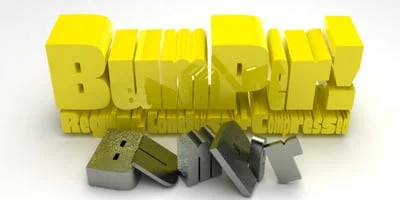
Bumper Font
Bumper Font is perfect for automotive industry branding, car dealership marketing, racing event promotions, auto repair shop signage, collision center communications, and high-impact automotive campaigns. Its robust character makes it ideal for car manufacturers, automotive parts suppliers, racing teams, auto insurance companies, and any application requiring bold typography that conveys automotive strength, road durability, and the rugged reliability of vehicles built to withstand impact and deliver dependable performance.
Bumper Font is exciting because it embodies the protective strength and impact resistance of automotive engineering through powerfully constructed letterforms that reflect the safety features and robust construction that protect drivers and passengers. Its sturdy proportions and impact-resistant details evoke the confidence that comes from reliable automotive protection and the peace of mind provided by well-engineered safety systems, making it perfect for brands emphasizing automotive security and durability. The font's protective character transforms communications into declarations of automotive reliability.
Bumper Font family includes impact-ready weight variations typically featuring Regular, Medium, Bold, and Black options with robust styling that maintains automotive authenticity. The family often incorporates automotive symbols, safety icons, and impact-related elements designed for vehicle industry applications, providing designers with comprehensive tools for creating authentic, automotive-focused typographic compositions.
When selecting automotive industry typography solutions, Bumper Font represents an exceptional choice for vehicle-related and safety-focused projects. This sturdy typeface brings instant automotive authenticity to any design, making it invaluable for car dealerships, automotive manufacturers, and safety organizations celebrating vehicle protection. Whether you're developing automotive dealership branding, creating car safety campaign materials, or designing racing event promotions, Bumper Font provides the protective strength and automotive authenticity essential for establishing trust in today's safety-conscious automotive marketplace.